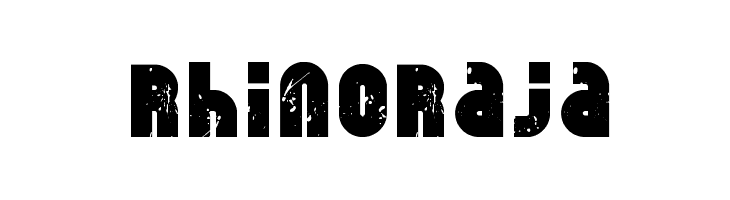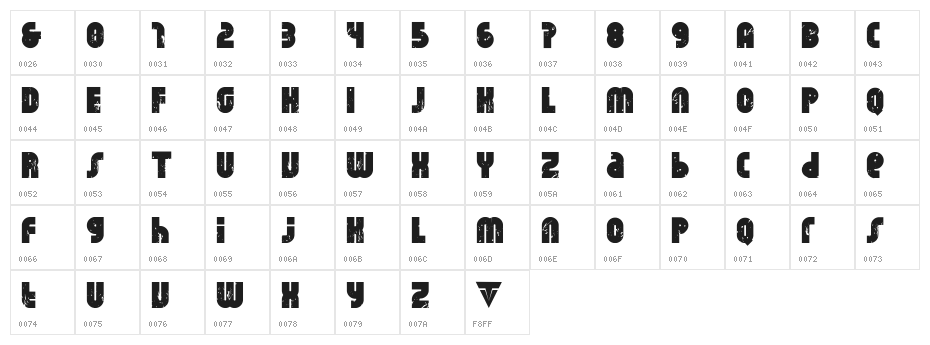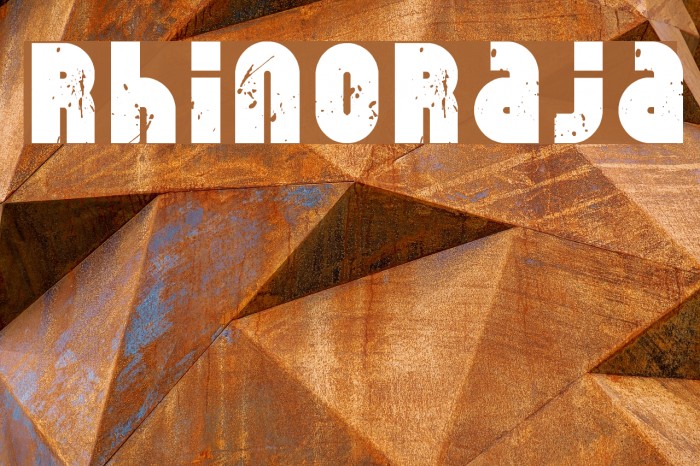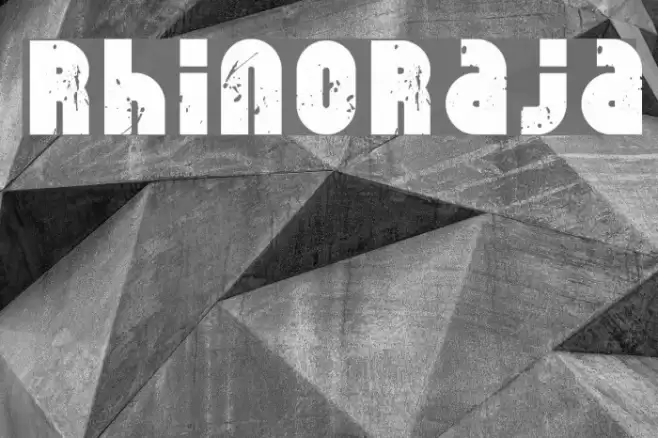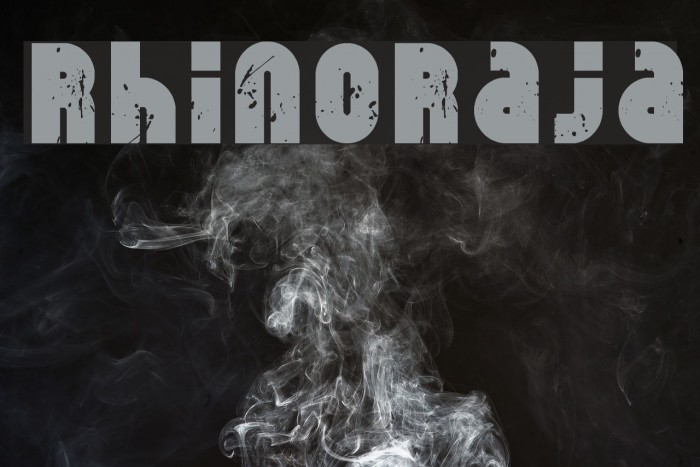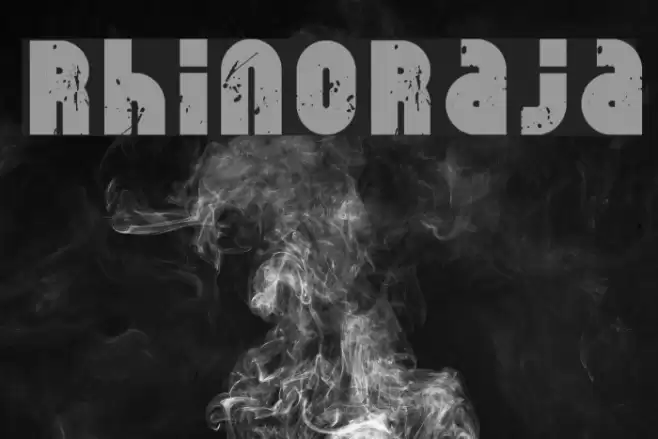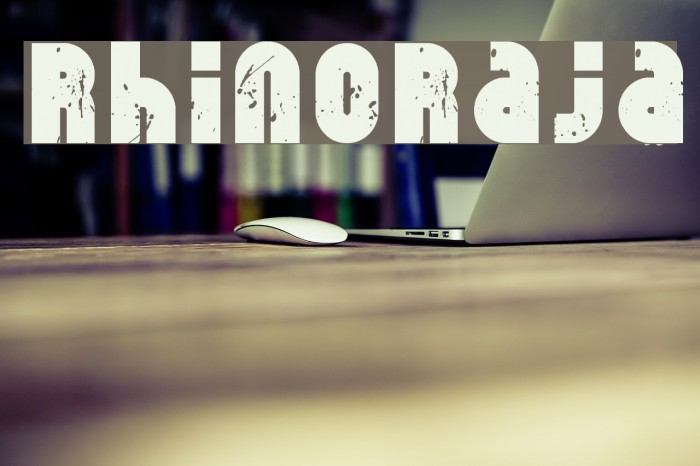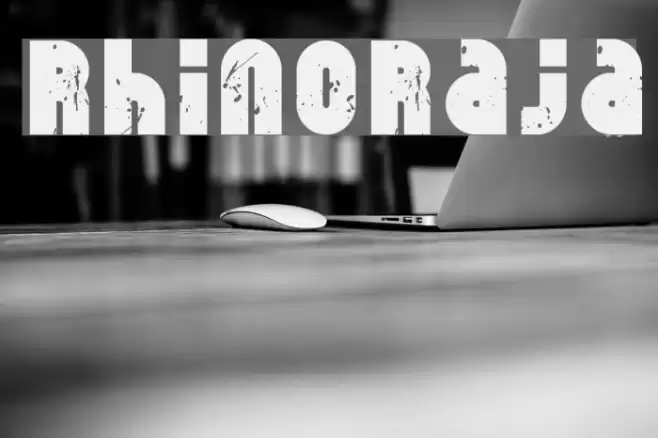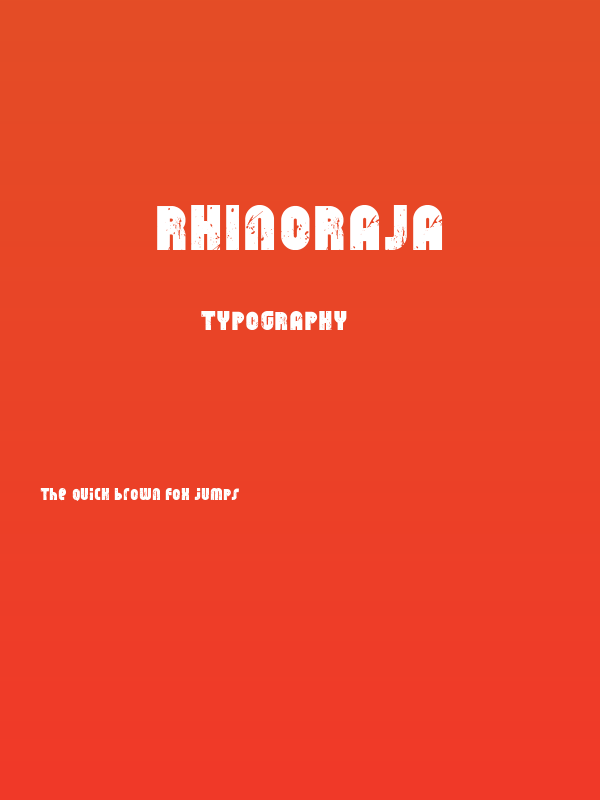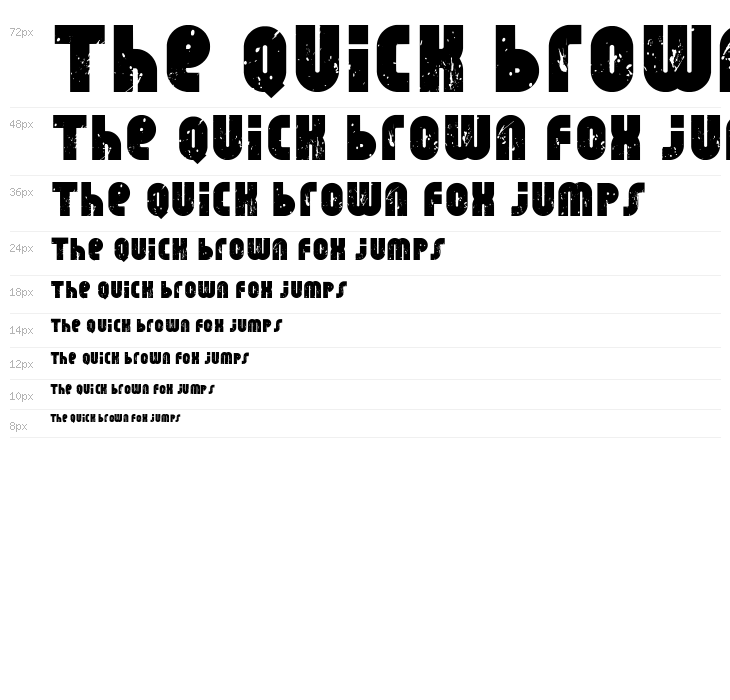
RhinoRaja Font
RhinoRaja Description
This font features a bold, distressed style with a strong, impactful presence. The characters are blocky and robust, with a weathered texture that gives them a rugged, industrial feel. The uppercase and lowercase letters maintain a consistent width, contributing to a uniform appearance. The numerals and special characters share the same distressed aesthetic, enhancing the font's cohesive look. This font is ideal for projects that require a gritty, urban vibe, such as posters, album covers, or branding for edgy products.
| Proposed Projects | Ideal for posters, album covers, branding for edgy products, and urban-themed designs. |